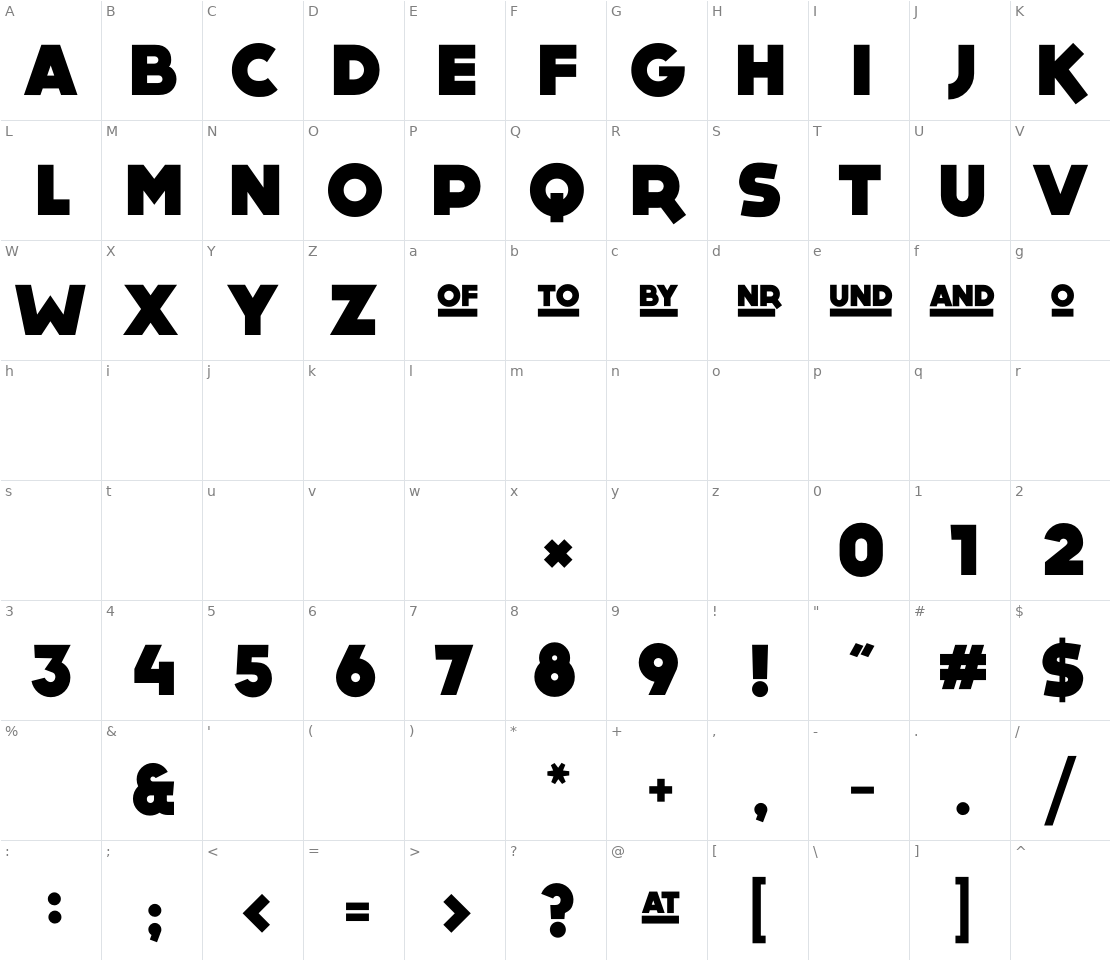
Dock 11
Dock 11 is a wide, ultra-heavy geometric display face from artill.de with uppercase-only letterforms that carry serious visual mass. Everything about it is dense and deliberate, built from simple shapes with minimal contrast and broad proportions that demand space. Best at large sizes for headlines, posters, and bold branding where you need type that fills the frame and refuses to be ignored.